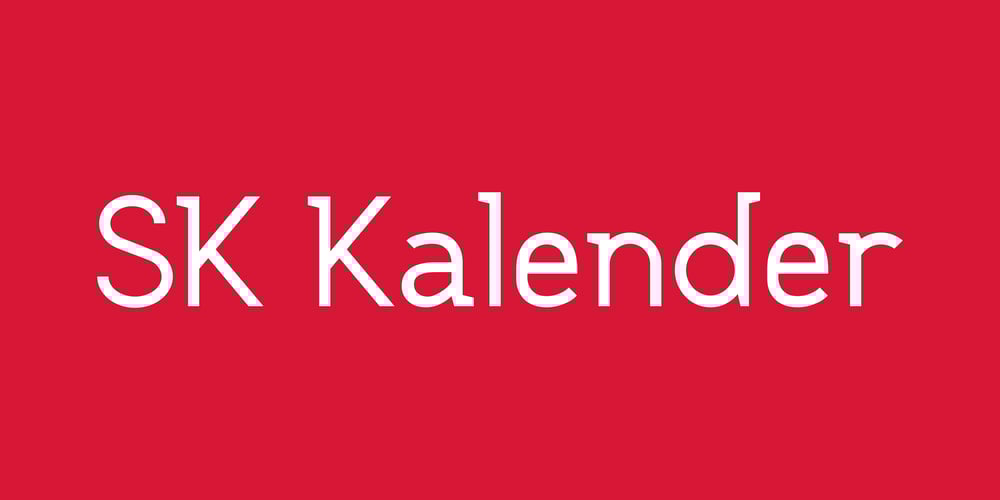
SK Kalender
SK Kalender font
SK Kalender Font Family was designed by Salih Kizilkaya and published by Salih Kizilkaya. SK Kalender contains 3 styles and family package options. SK Kalender is a sans serif and mono weighted font. It was designed by Salih Kızılkaya in 2020. The name of the font comes from the word “kalender”, which means humble, unpretentious and simple living. SK Kalender has three different versions, regular, medium and bold.